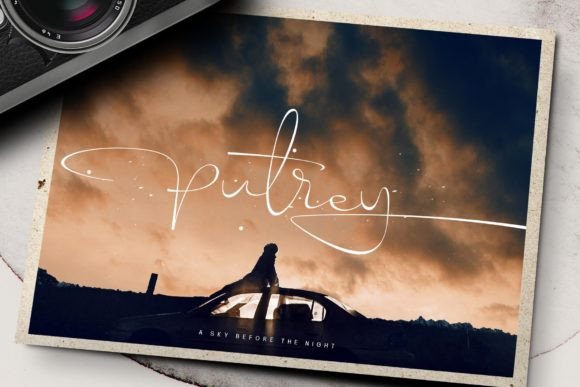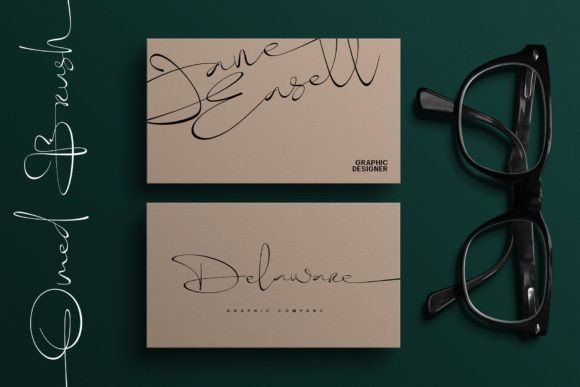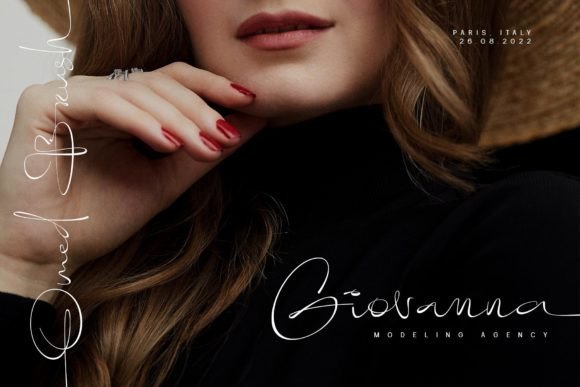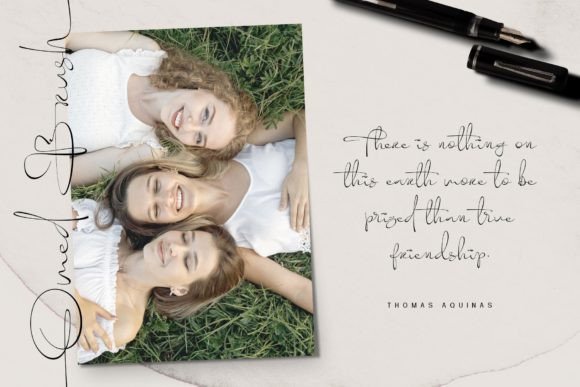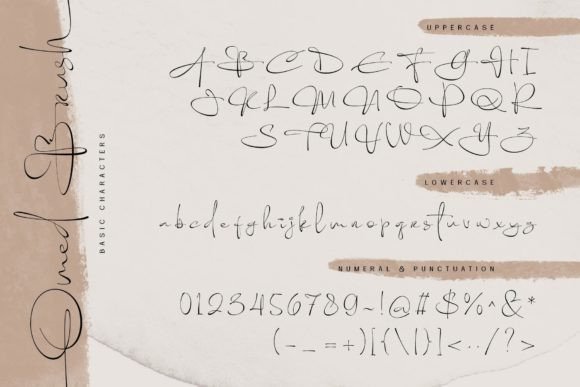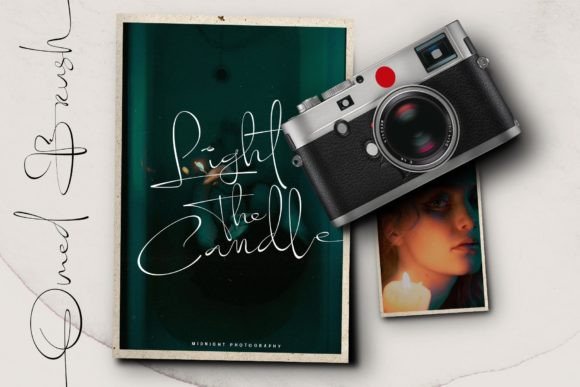
Introduction to Omed Brush Font
Have you ever been stuck in the middle of a creative project, desperately searching for the perfect font to give it that extra oomph? I know I have. The search for the perfect font can be a daunting task, but what if I told you that I’ve stumbled upon a game-changer – the Omed Brush Font.
This stunning handwritten script font is a breath of fresh air for any design project. With its modern and cool vibe, it’s sure to add a touch of sophistication to your work. The Omed Brush Font is not just any ordinary font, it’s PUA encoded, which means you can access all its amazing glyphs and ligatures with ease.
Key Features of Omed Brush Font
- Unique, hand-drawn design perfect for creative projects requiring a personal touch.
- Transparent background, making it easy to layer over images or other design elements.
- Available in a range of sizes, from 12pt to 72pt, with high-resolution designs suitable for print and digital applications.
- Designed to be highly legible, even at small sizes, making it perfect for use in titles, headings, and body text.
- Perfect design resource for creatives working on a variety of projects, from branding and marketing materials to editorial and publishing content.
Honest Review: Omed Brush Font
I recently had the chance to work with the Omed Brush Font, and I must say it’s been a great addition to my design toolbox. This font is perfect for any creative project that requires a touch of hand-drawn charm.
One of the things I love about the Omed Brush Font is its high quality and versatility. It comes with a transparent background, making it easy to overlay on top of other design elements. Plus, it’s available for free download, which is always a bonus.
Here are some things that work well with the Omed Brush Font:
- ✨ Unique, hand-drawn aesthetic
- ✨ Versatile and suitable for various design projects
- ✨ High-quality design resource
- ✨ Transparent background for easy overlaying
- ⚠️ Limited character set, which may require some creative workarounds
- ⚠️ Not suitable for projects that require a professional, corporate feel
Overall, I’m really impressed with the Omed Brush Font. It’s a great design resource that can add a lot of character to any project. With a little creativity, the limitations can be overcome, and the results can be truly stunning.
Omed Brush Font
Tips for Getting the Most Out of Omed Brush Font
To get the most out of the Omed Brush Font, try using it in combination with other design elements, such as textures and patterns. Experiment with different font sizes and styles to add visual interest to your designs.
The Omed Brush Font is perfect for a variety of creative projects, including:
- Invitations and event materials
- Branding and marketing materials
- Artistic and creative projects